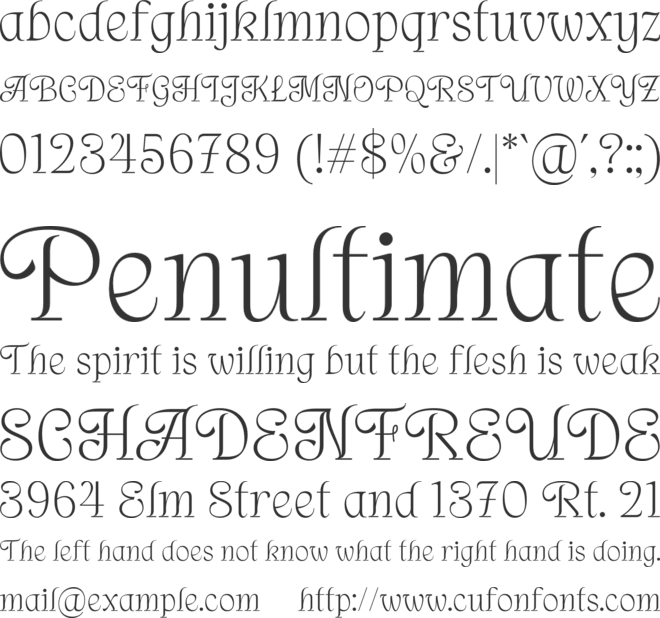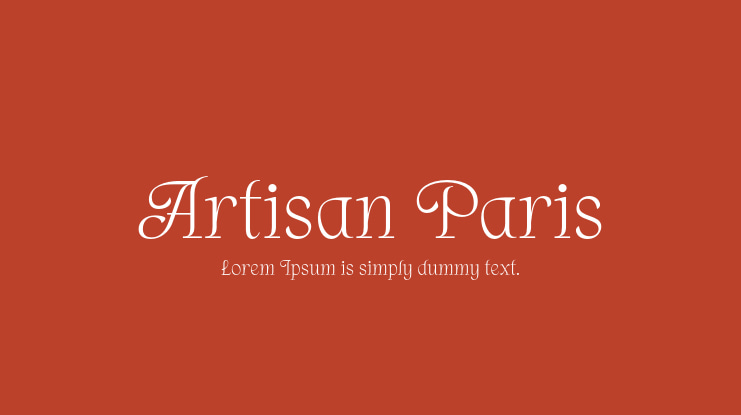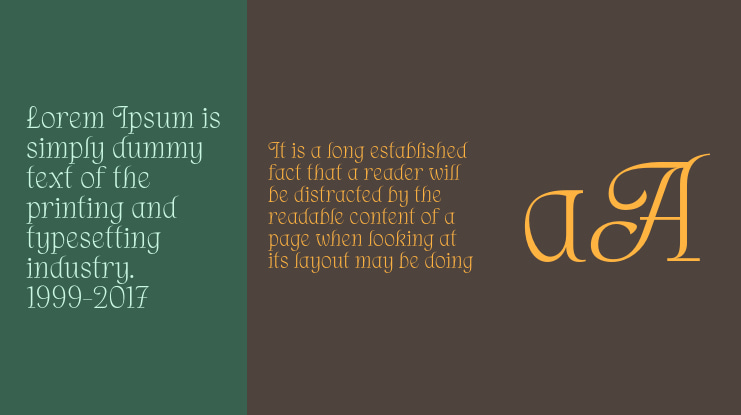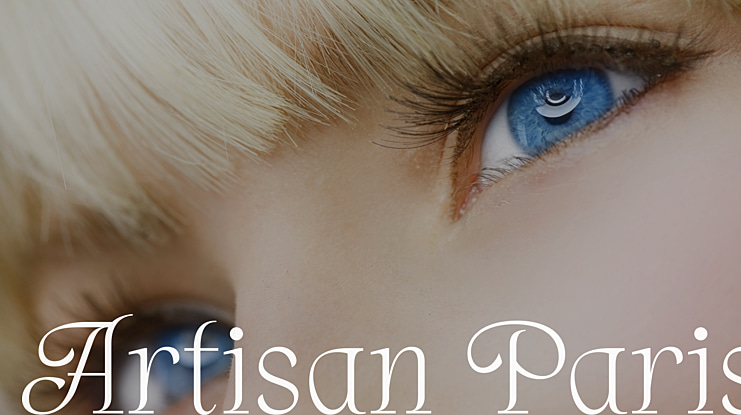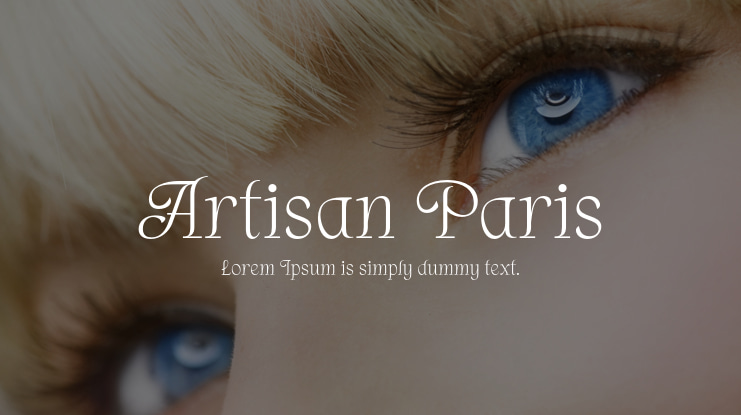
Laire Banyu Sandi Pawenang
Artisan Paris, a true embodiment of Parisian finesse and grace, is a
mesmerizing display font crafted with a delicate and aesthetic
feminine style.